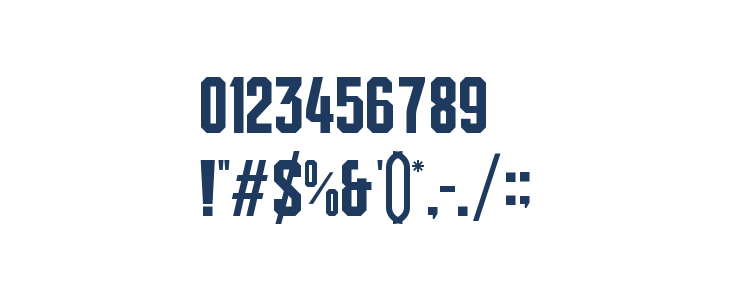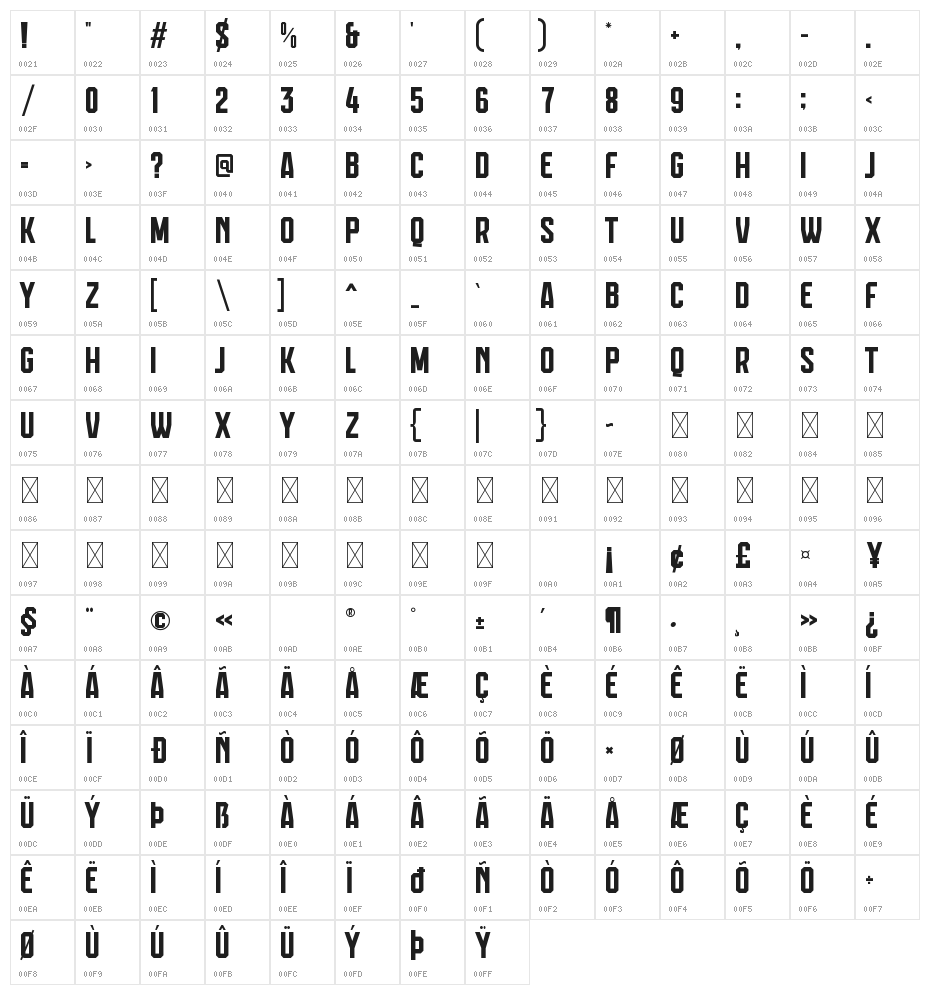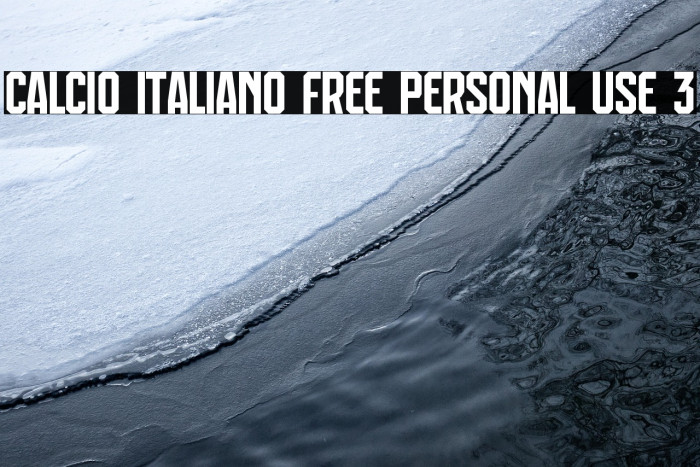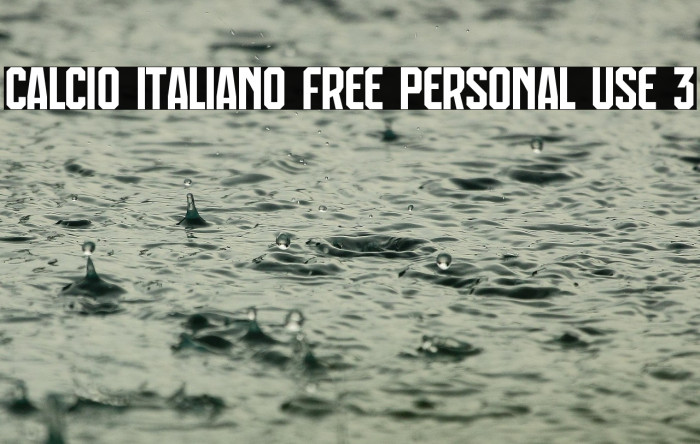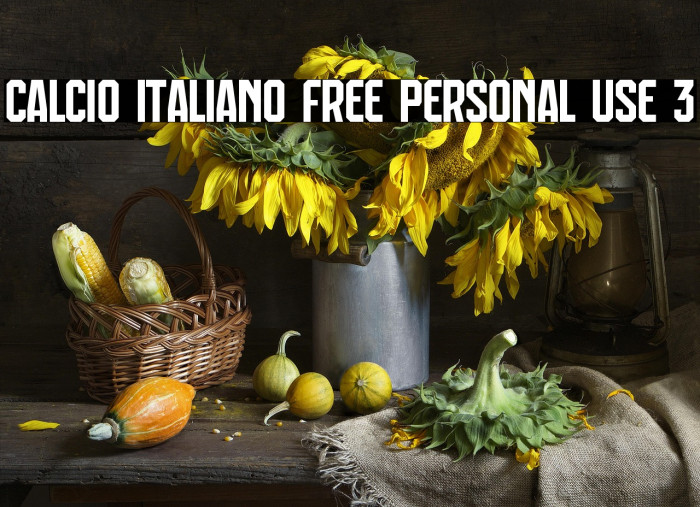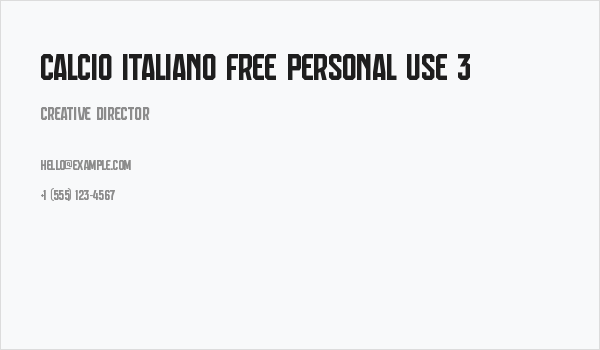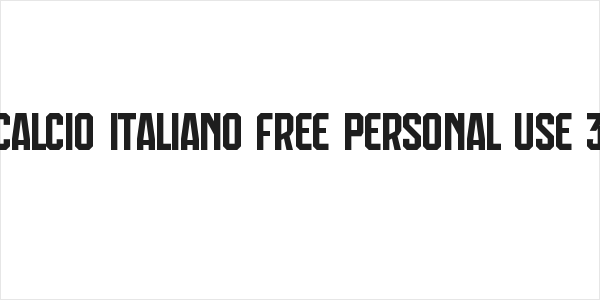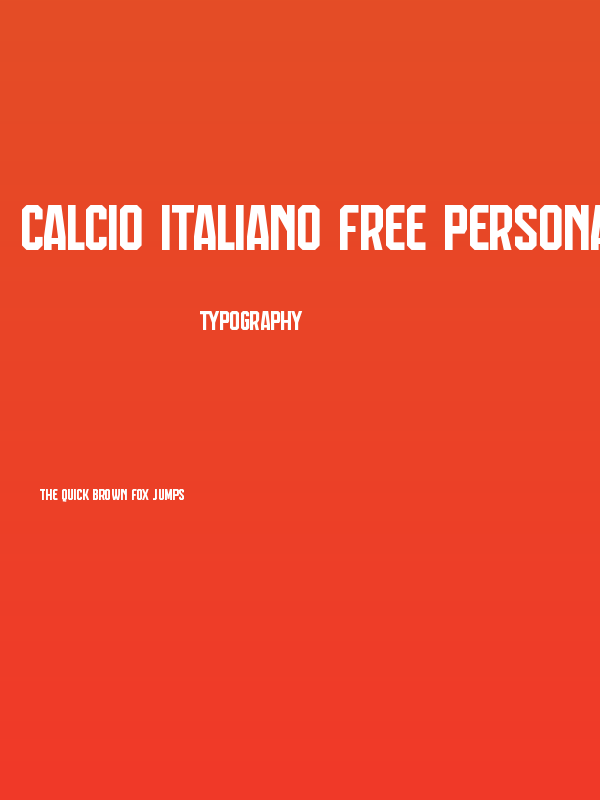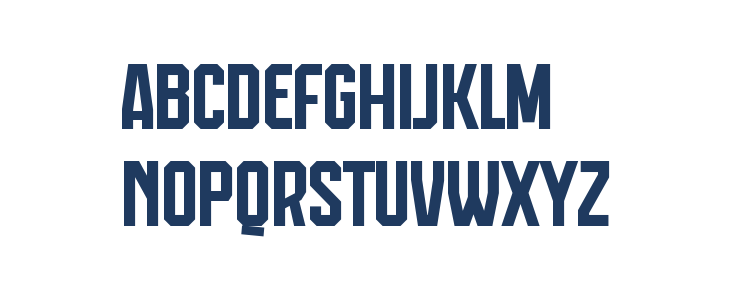
Calcio Italiano Free Personal Use 3 Font
Calcio Italiano Free Personal Use 3 Description
This font features a bold and geometric design with strong, angular lines and a solid presence. The uppercase letters are uniform in height, creating a cohesive and structured appearance. The characters are tightly spaced, enhancing the compact and impactful look. The numbers and special characters maintain the same boldness and geometric style, ensuring consistency across all elements. This font exudes a modern and assertive aesthetic, making it suitable for projects that require a strong visual impact.
| Proposed Projects | Ideal for sports branding, posters, headlines, and any project needing a bold, impactful typeface. |